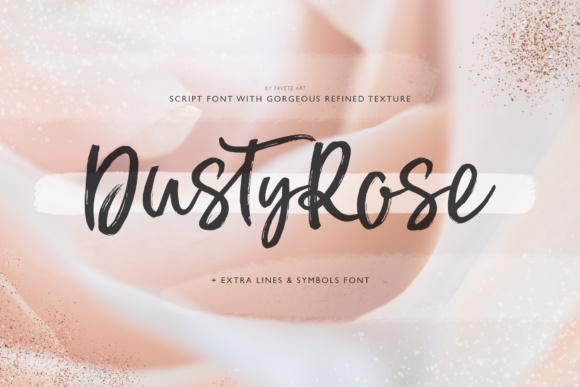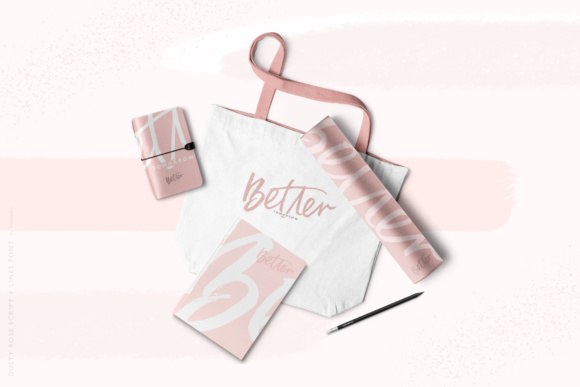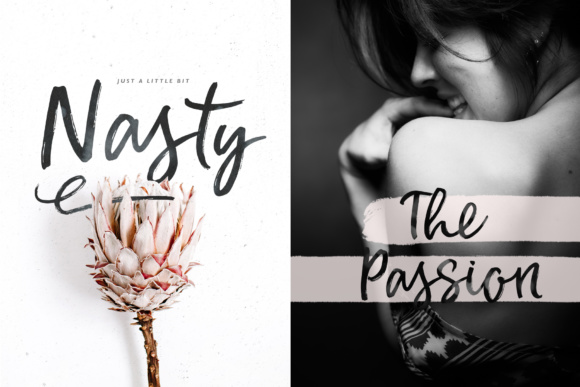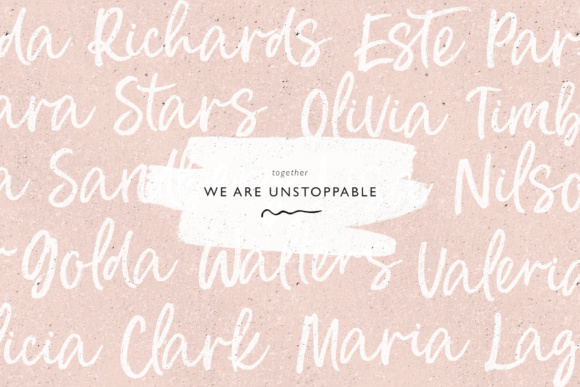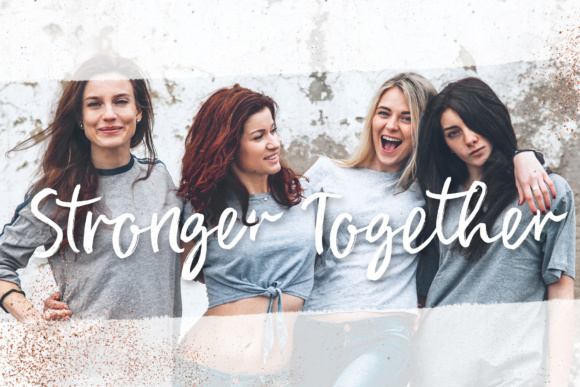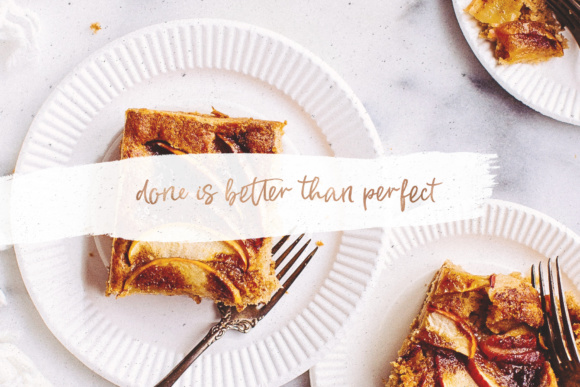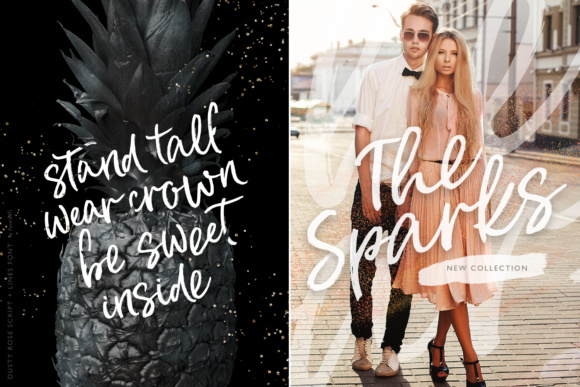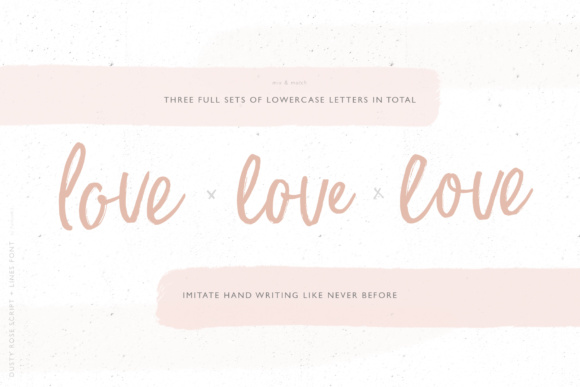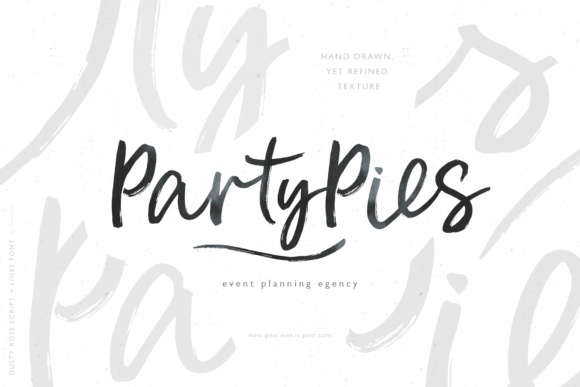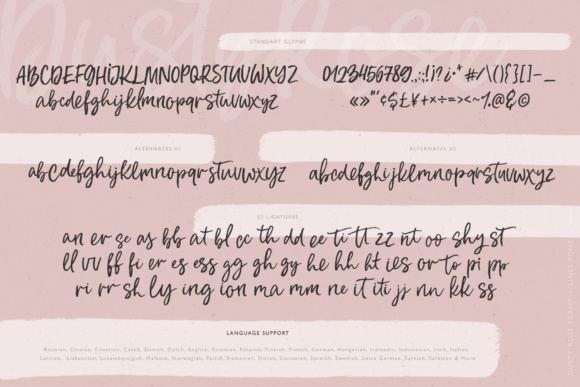
Dusty Rose Font
Dusty Rose is an energetic font with a refined hand drawn texture. The best thing about this font is that it has an organic, yet very clean texture.
It looks great both in small and in large scale! Dusty Rose includes three sets of lowercase letters that will help you imitate handwriting like never before! It’s feminine, yet free spirited, airy and quite bold at the same time.